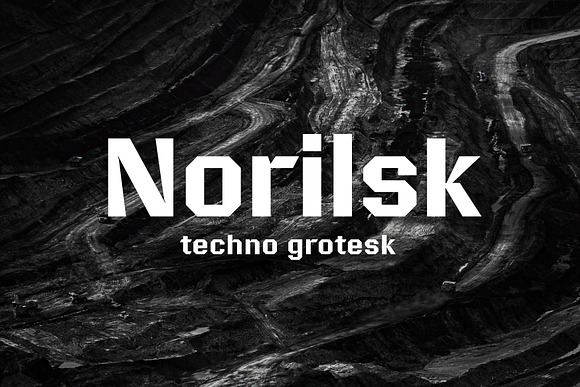
Norilsk font
Norilsk Font is perfect for Arctic exploration branding, winter sports marketing, extreme weather equipment packaging, rugged outdoor gear companies, northern adventure tourism, industrial mining operations, cold-climate architectural presentations, and resilient lifestyle campaigns.
What makes Norilsk Font exciting is its incredibly resilient character that embodies the harsh beauty and uncompromising strength of the Arctic environment through bold, weather-tested letterforms that seem forged by the extreme conditions of the world's northernmost cities. The font features robust geometric structures with frost-resistant details that reflect the enduring spirit and industrial fortitude required to thrive in Earth's most challenging climates. Its formidable presence and Arctic authenticity make it perfect for brands that want to communicate extreme durability, unbreakable resilience, and the legendary toughness that conquers the world's harshest environments while creating memorable experiences that honor human determination in the face of nature's greatest challenges.
Norilsk Font family includes various cold-weather weights such as Regular, Medium, Bold, and Heavy variations, often featuring Arctic-inspired alternates and industrial decorative elements. The family may include polar symbols, tundra ornaments, and extreme-weather ligatures that enhance the font's resilient aesthetic, providing designers with comprehensive options for creating powerful typographic compositions that celebrate human endurance and Arctic survival.